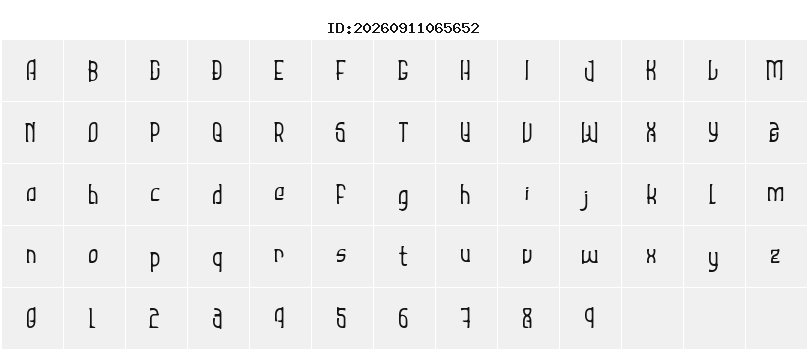
Vanilla Preview
• Font Name: Vanilla
• Full Font Name: Vanilla
About Vanilla.ttf
Vanilla.ttf is a modern, elegant sans-serif font designed for ultimate readability and visual harmony. Perfect for branding, headlines, web design, and print materials.